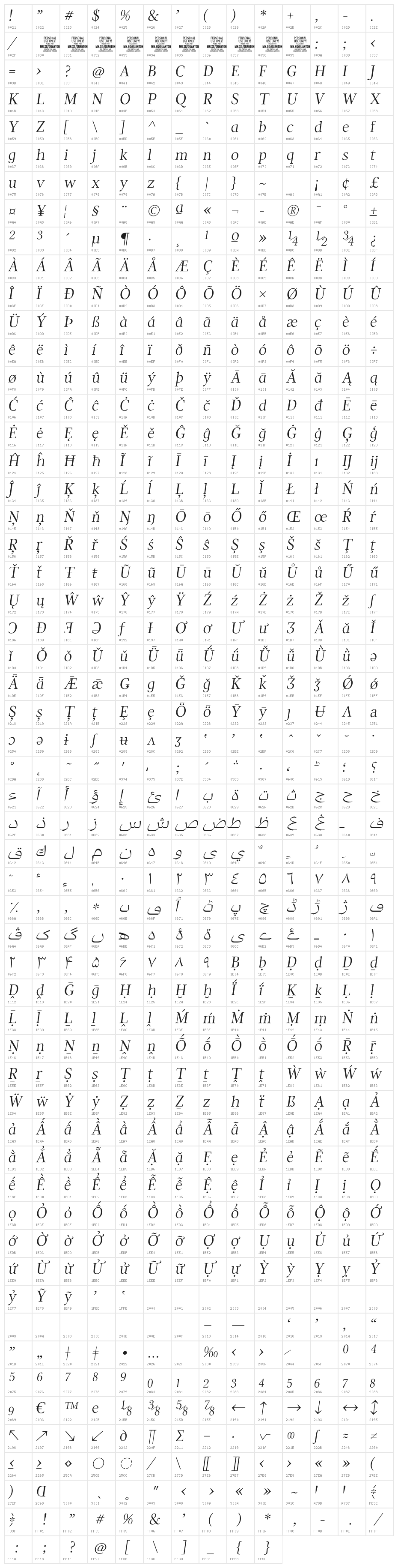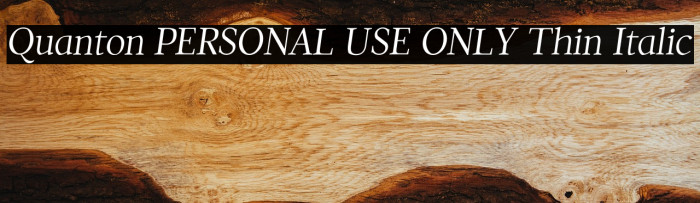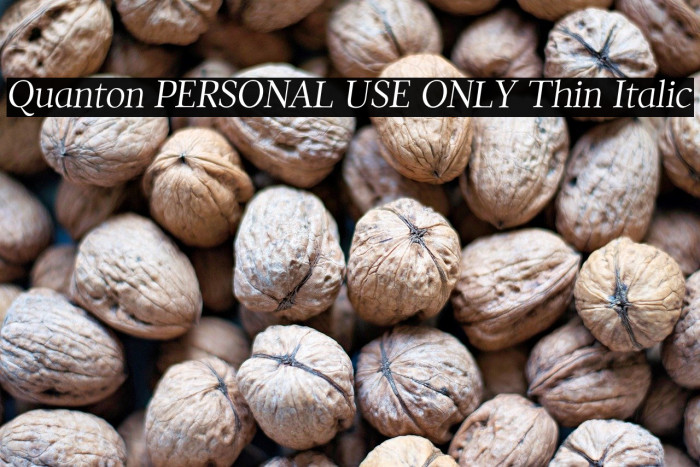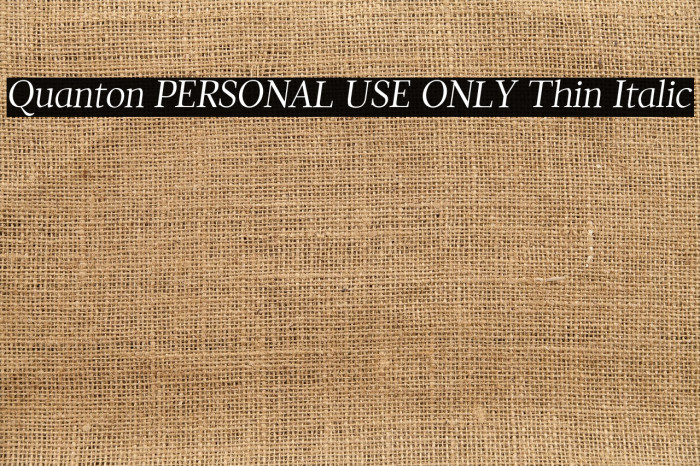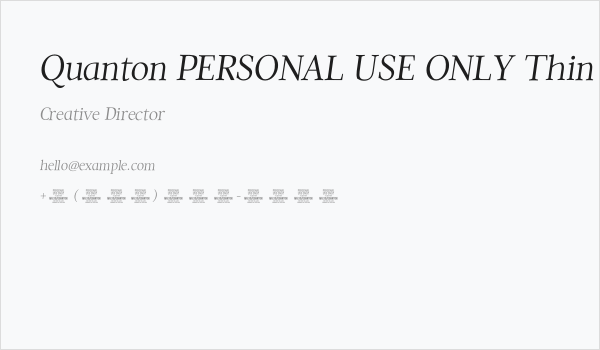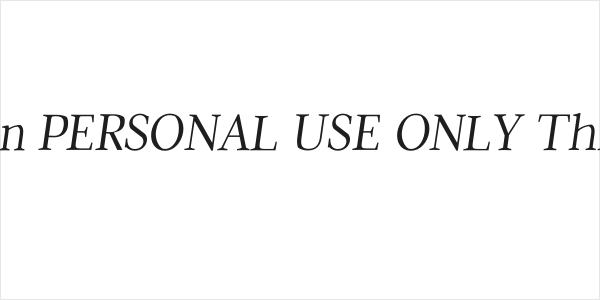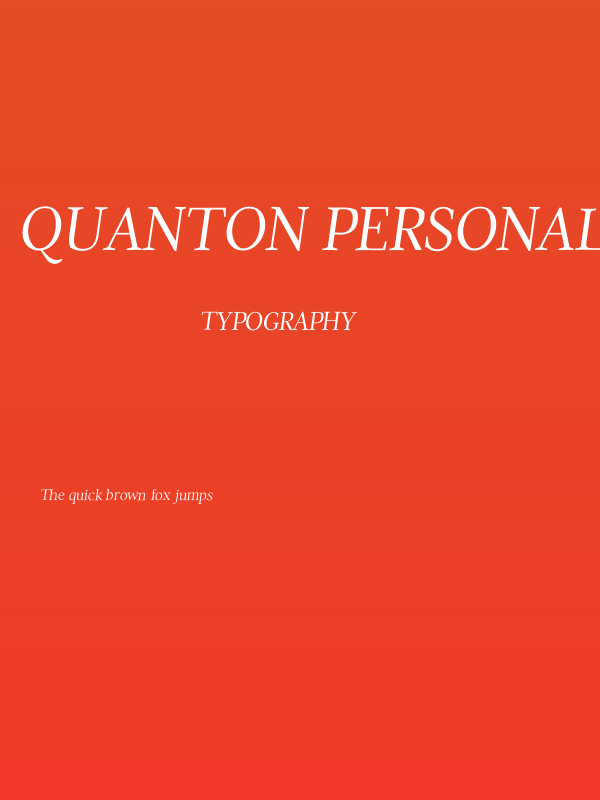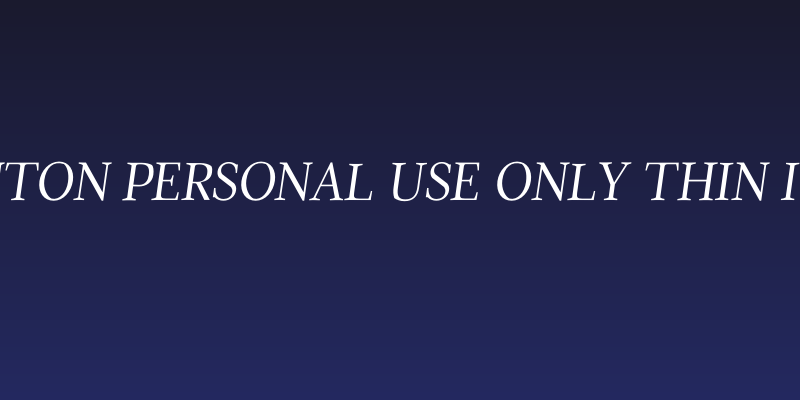
Quanton PERSONAL USE ONLY Thin Italic Font
Quanton PERSONAL USE ONLY Thin Italic Description
This elegant typeface features a thin, italicized style that exudes sophistication and modernity. The characters are gracefully elongated with a slight slant, giving them a dynamic and fluid appearance. The font maintains a consistent stroke width, contributing to its sleek and refined look. The uppercase letters are tall and commanding, while the lowercase letters are more delicate, providing a harmonious balance. The numerals and special characters are designed with the same attention to detail, ensuring uniformity across all elements. This font's thin and italic nature makes it ideal for projects that require a touch of elegance and style.
| Overall Style | Elegant and modern |
| Proposed Projects | Ideal for fashion magazines, luxury branding, wedding invitations, and elegant website headers. |